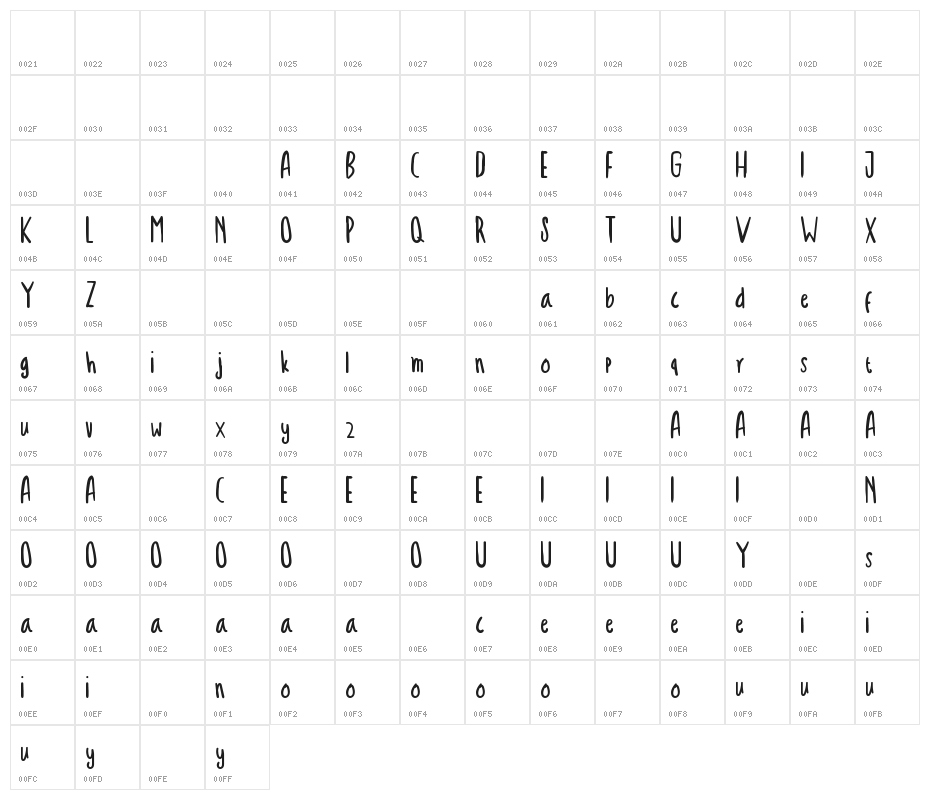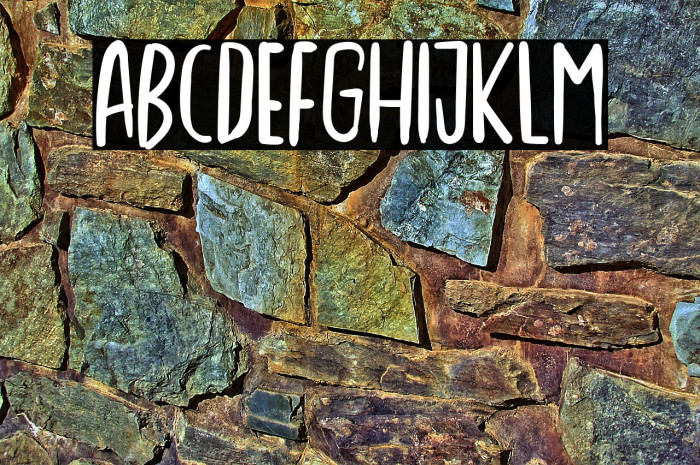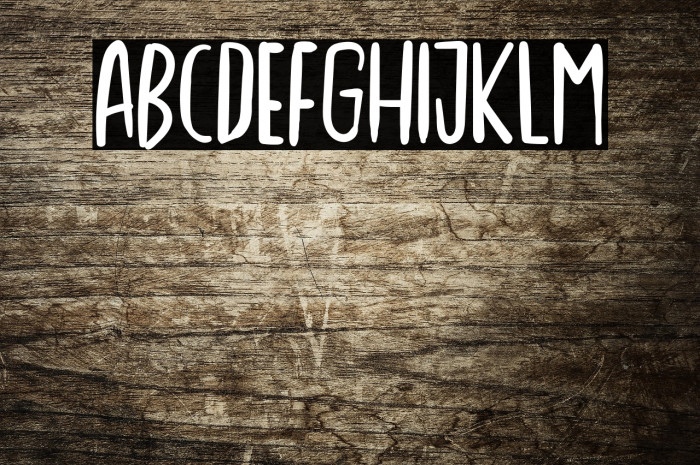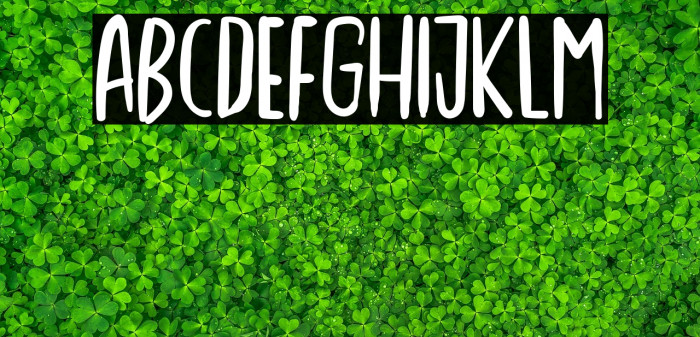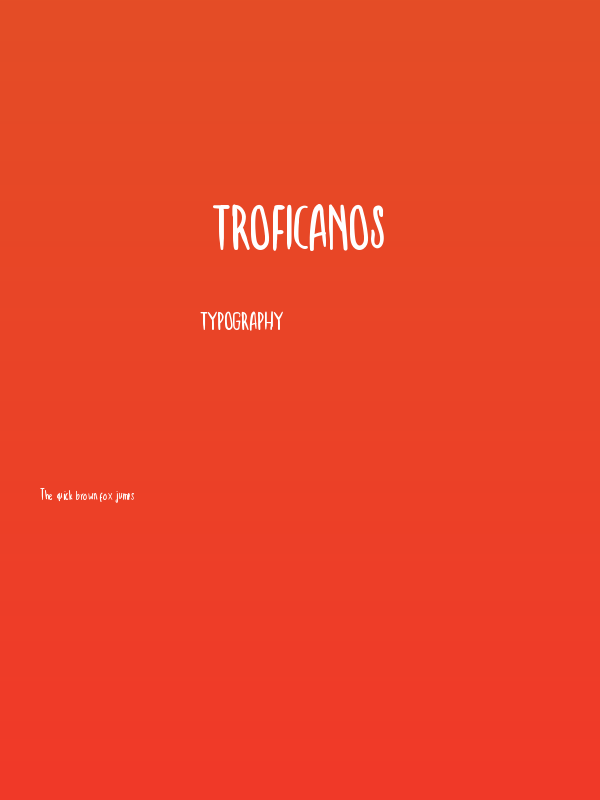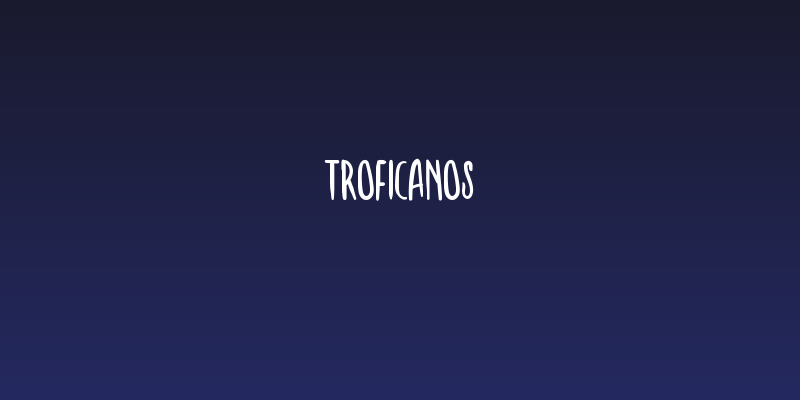
Troficanos Font
Troficanos Description
This font features a playful and informal handwritten style, characterized by its uneven strokes and casual appearance. The letters are slightly elongated with a whimsical touch, giving it a friendly and approachable feel. The uppercase and lowercase letters maintain a consistent style, with rounded edges and a slight slant that adds to its charm. The numbers and special characters follow the same playful design, making it suitable for creative projects. The overall look is dynamic and lively, perfect for adding a personal touch to any design.